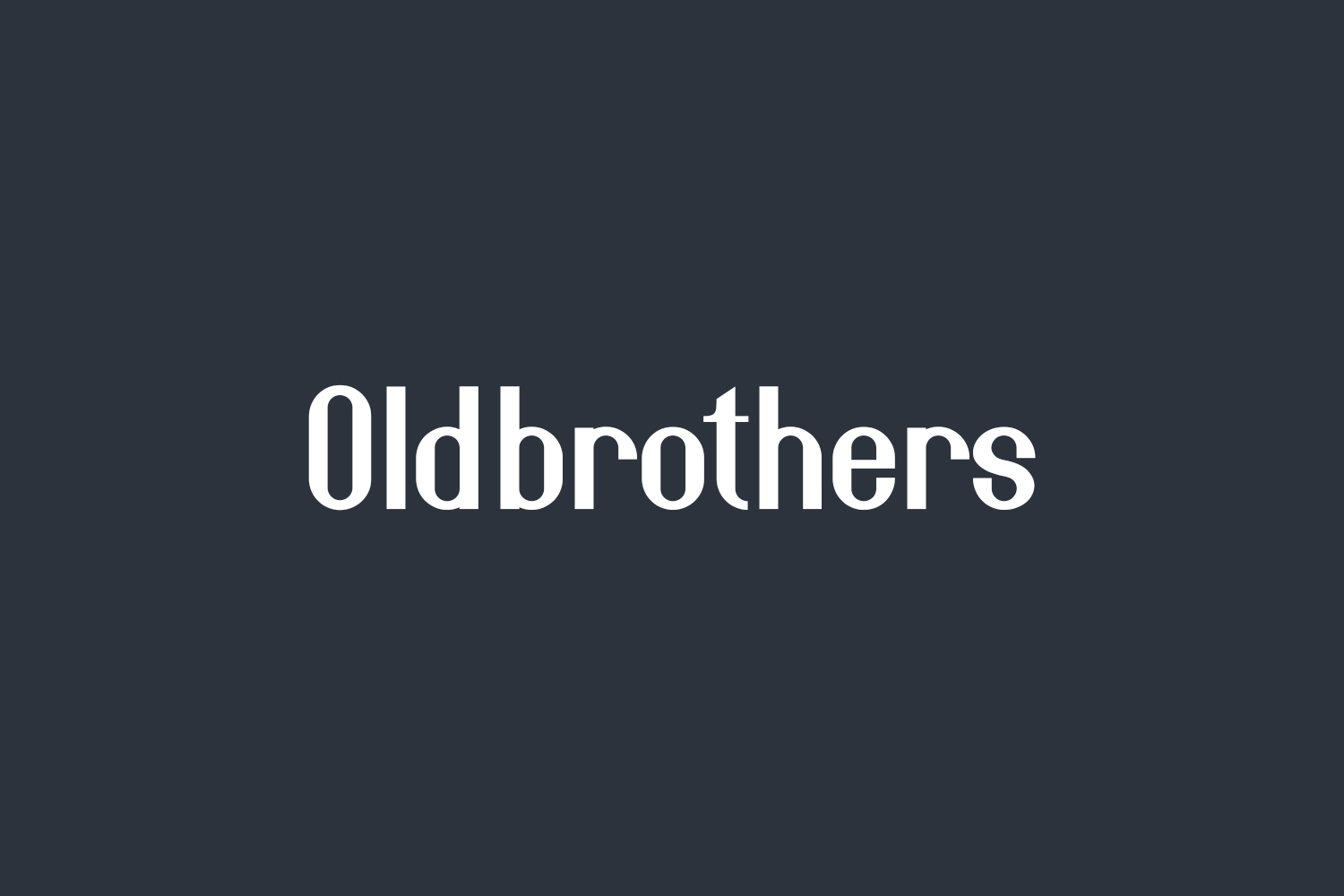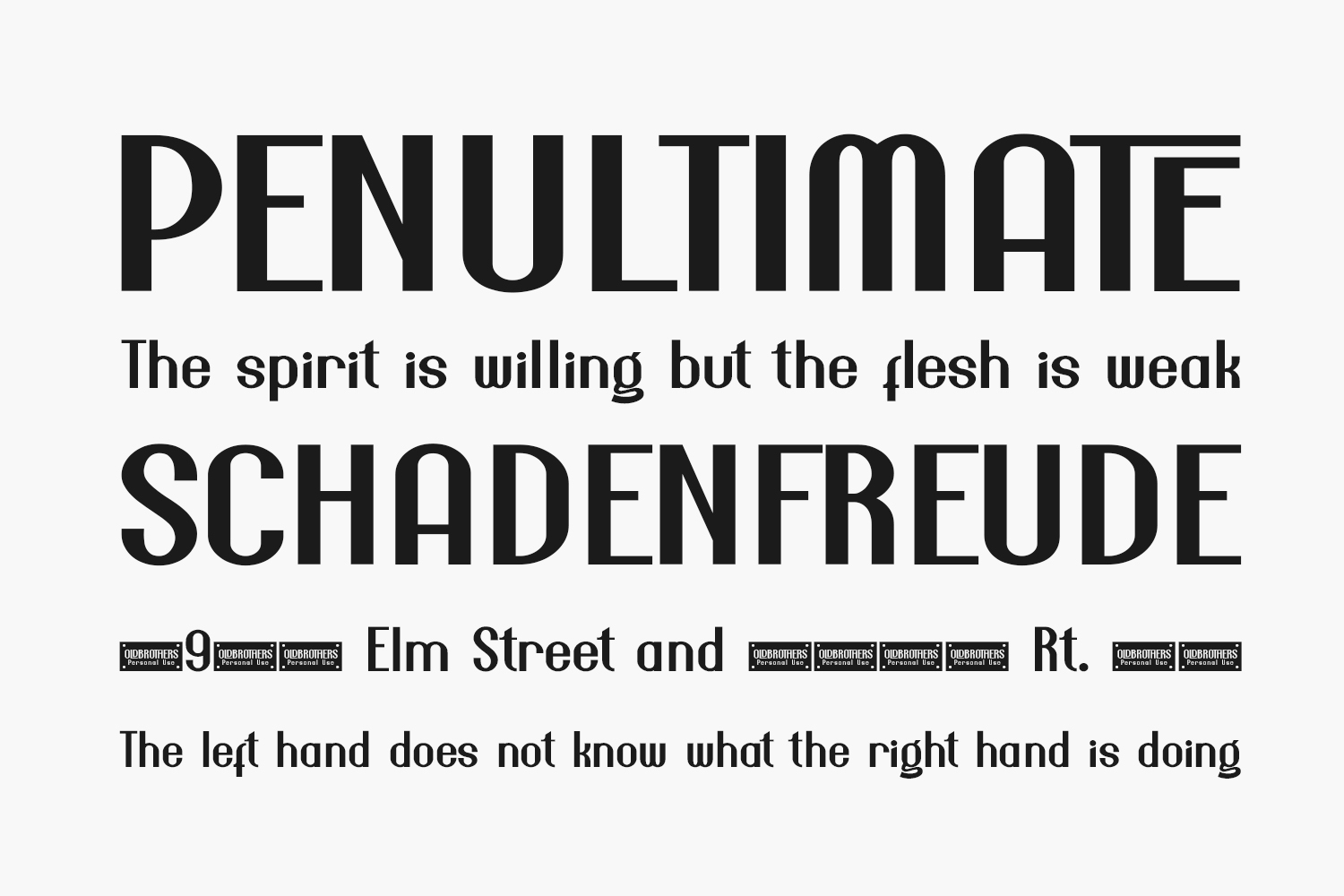
Oldbrothers Free Font is a simple lettered, bold display font. Masterfully designed to become a true favorite, this font has the potential to bring each of your creative ideas to the highest level. Oldbrothers Free Font was designed by Haksen Studio is a demo and free for personal use only. Please purchase the full version for commercial use.
Designed by Haksen Studio